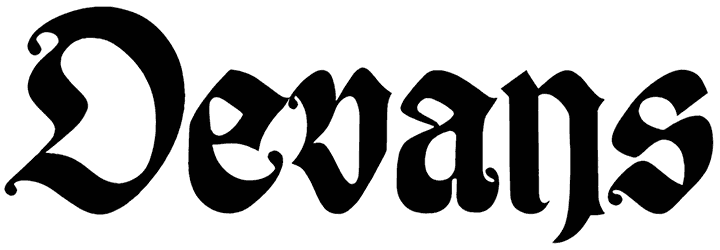
Remboland Font
The cool visual of this black letter font has the potential to throw a charming and noble vibe into your creative design. The Remboland font has almost all characters in a tall and strong mood. You can use this gothic font to make a historical movie poster, a rock music album design, or so forth, and capture a lot of attention.
Designed by: Alit Design